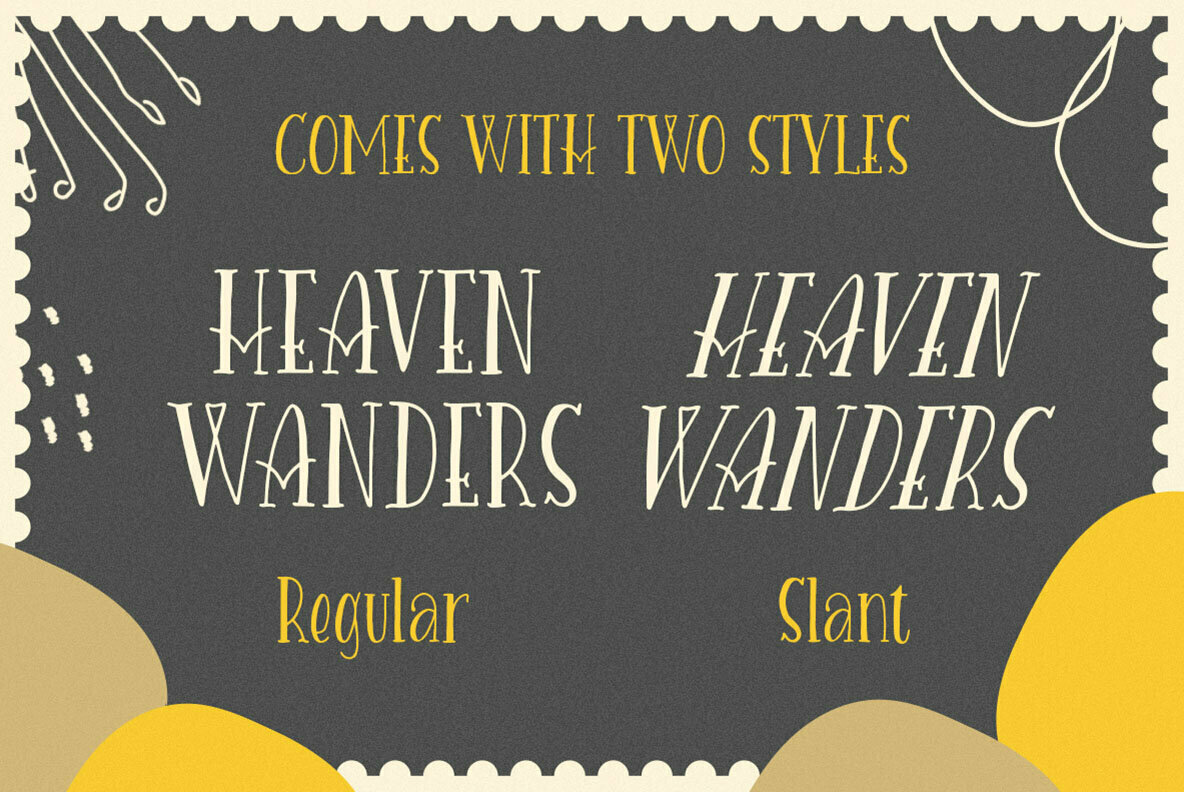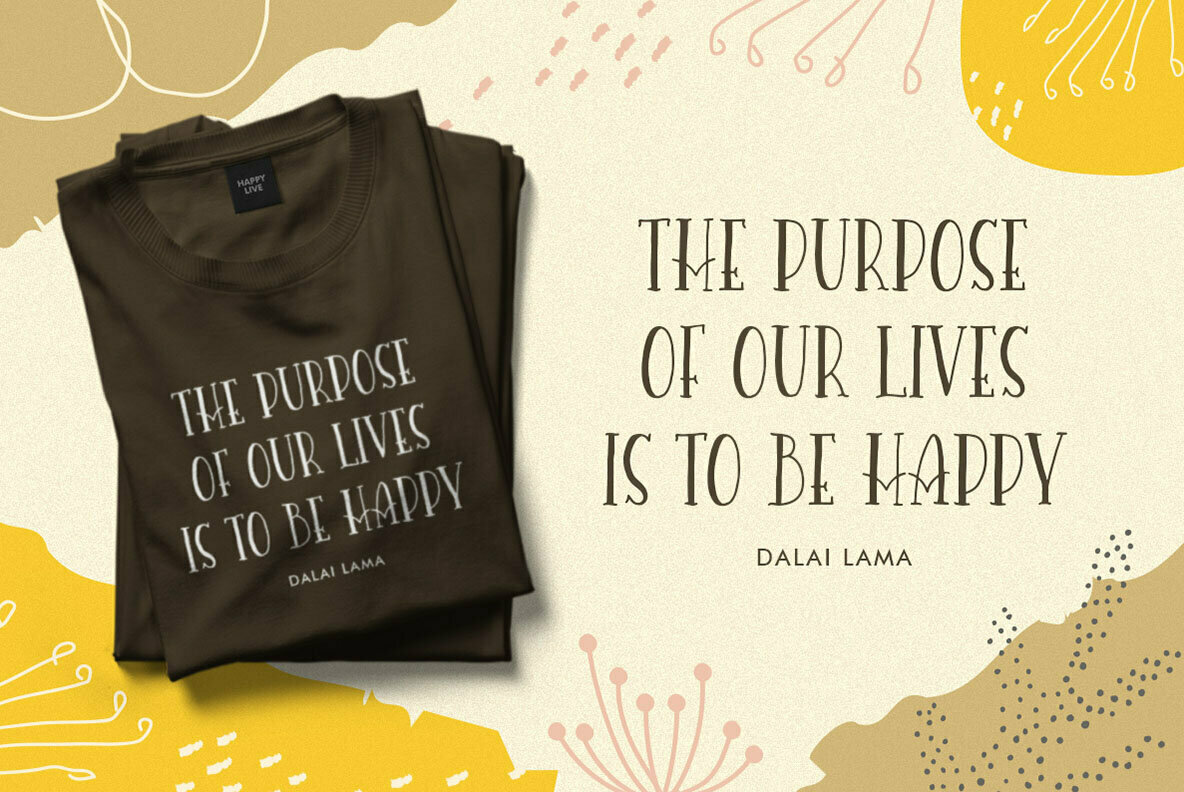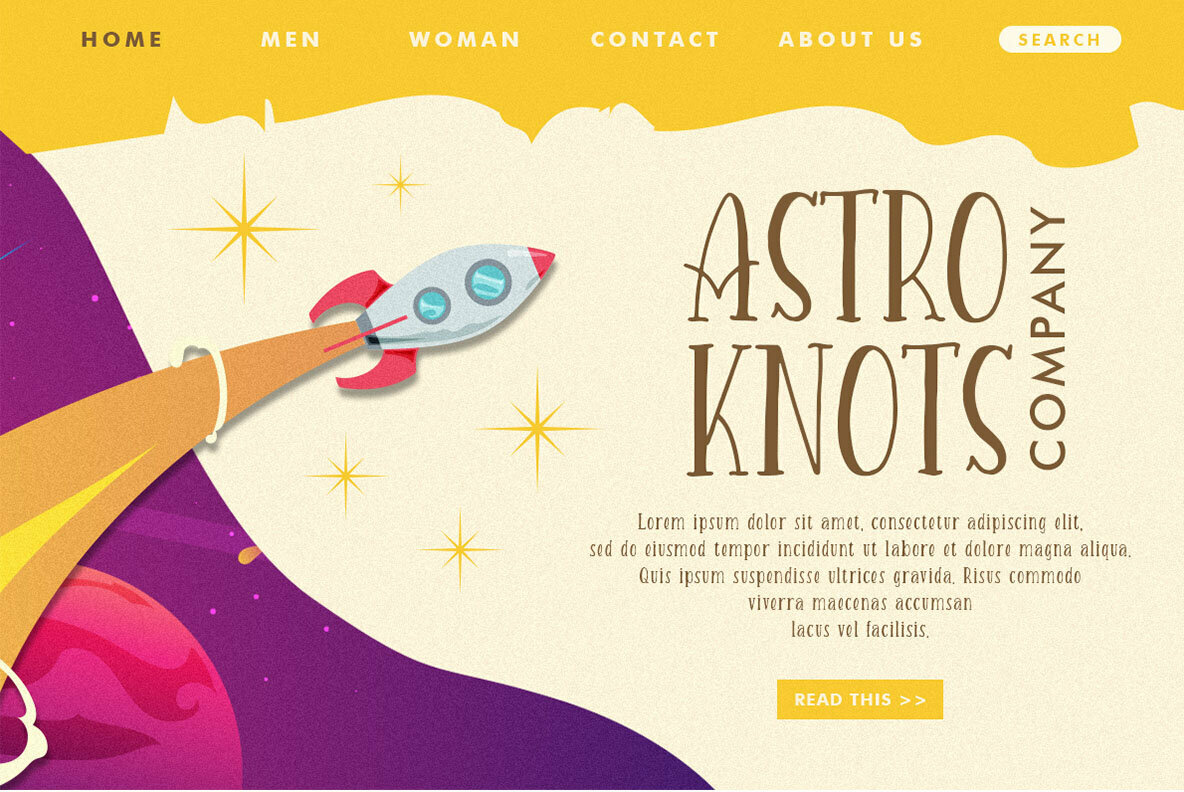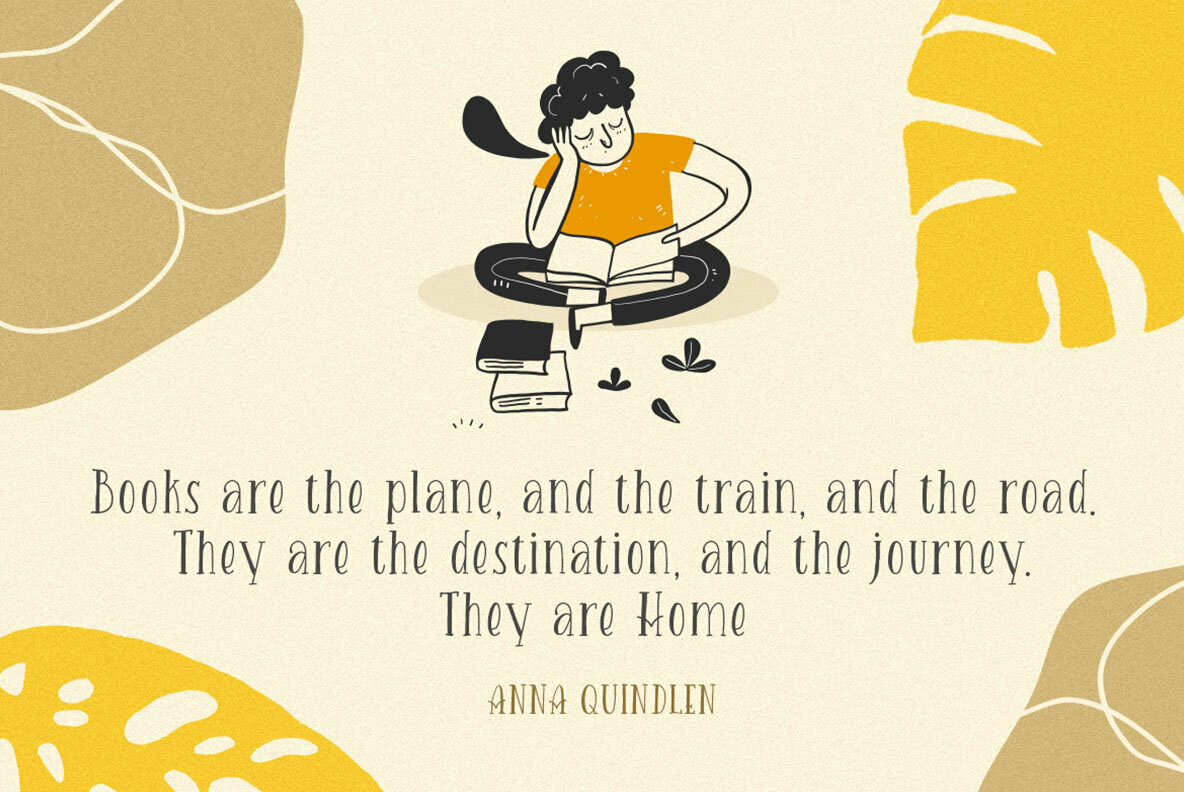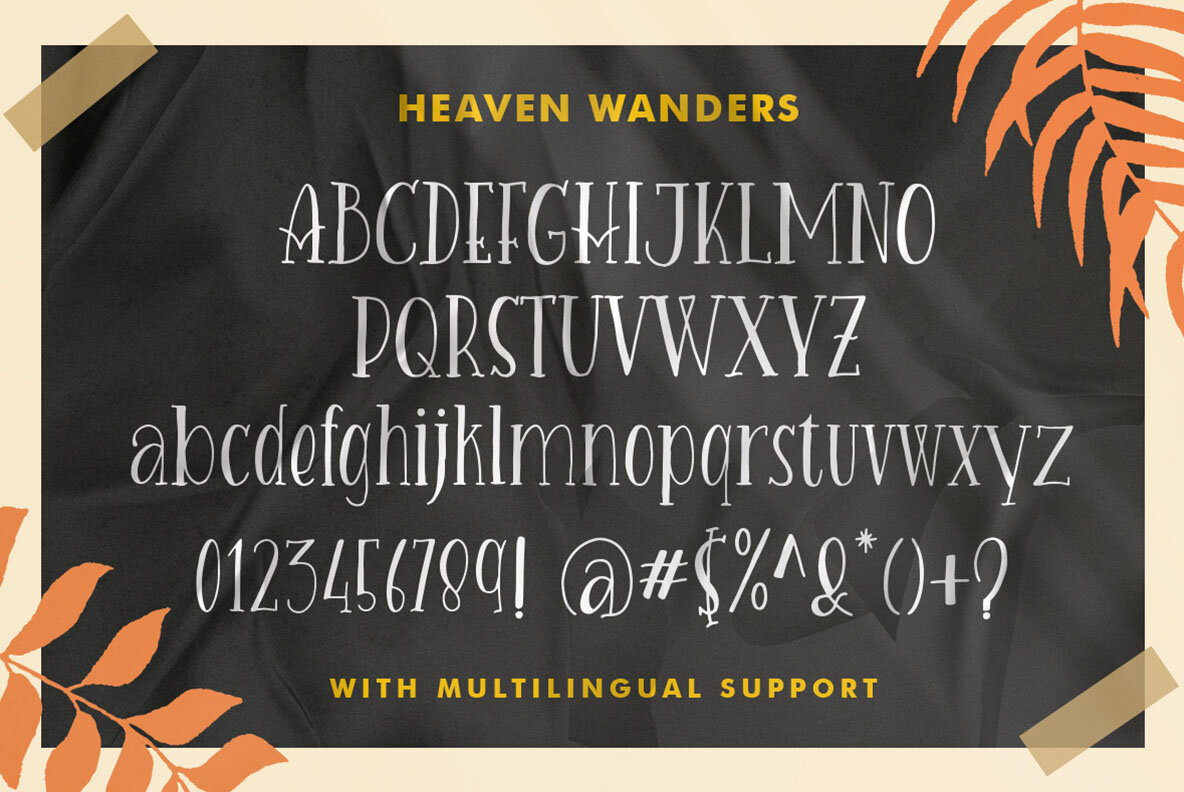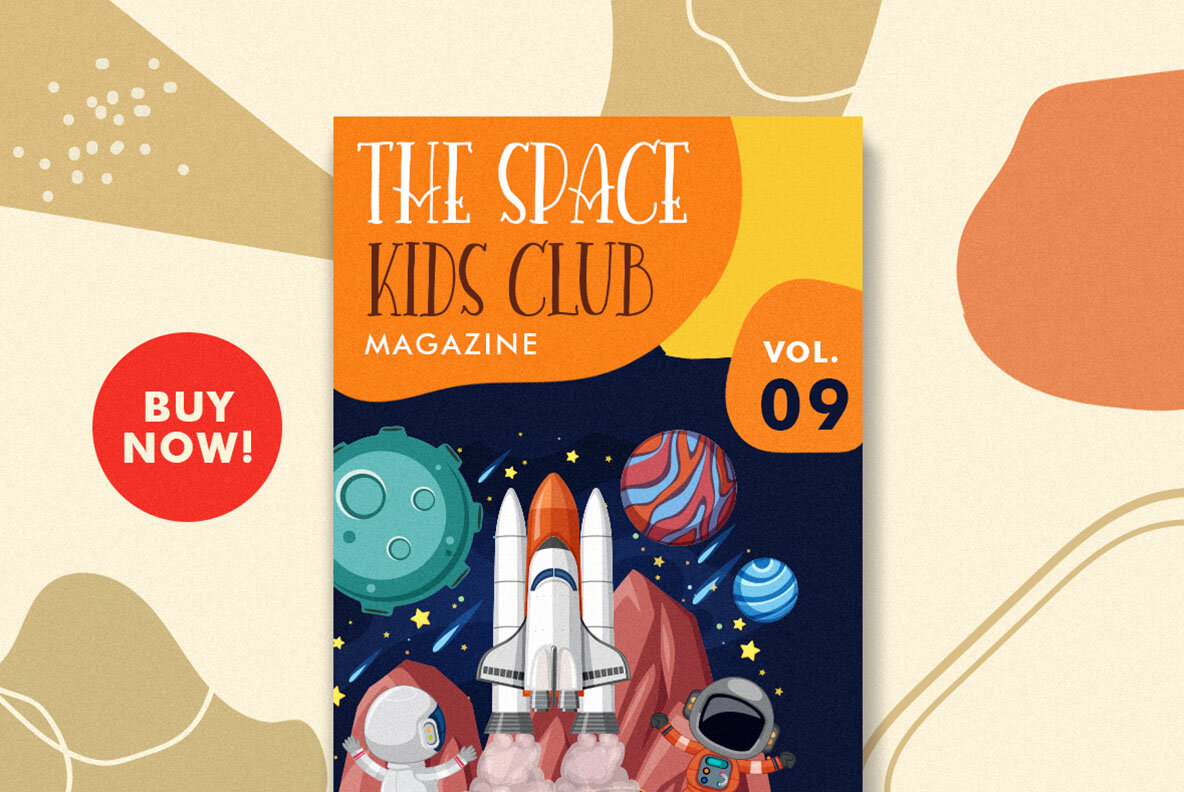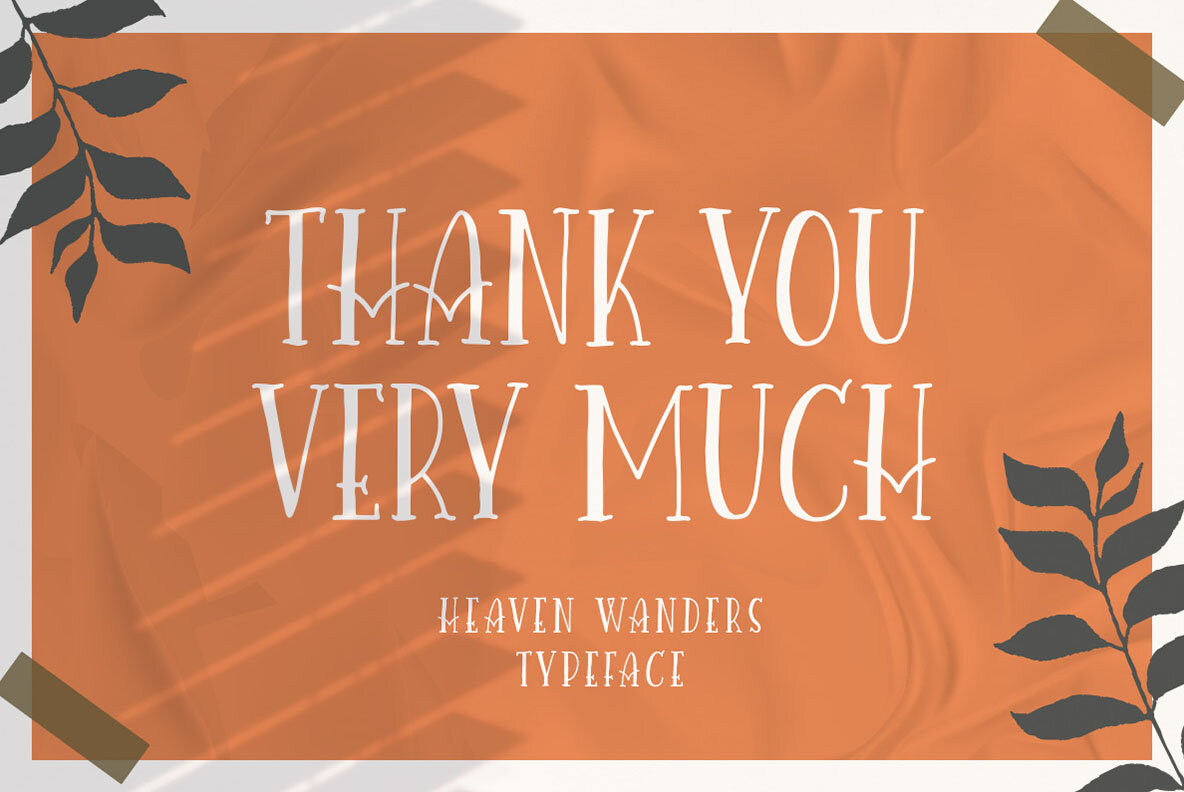
Heaven Wanders Font
Heaven Wanders Regular
Heaven Wanders Slant
Heaven Wanders, a unique handwritten typeface. There are two style with regular and slant. As you can see, this typeface has playful and fun look which is perfectly made to be applied especially in storybook cover, comics, cartoon characters, kids theme design, etc.
- Uppercase & lowercase
- Numbers and punctuation